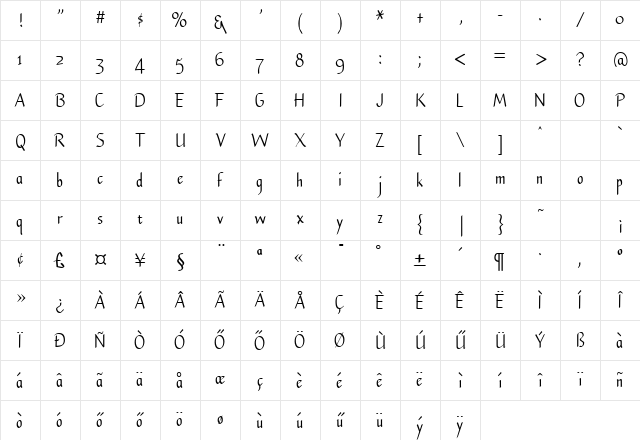
Hu_Ballon Regular Free Font
Hu_Ballon Regular
Design Context for Hu_Ballon
Hu_Ballon is a composed and adaptable typeface that performs quietly and consistently across a wide range of design contexts.